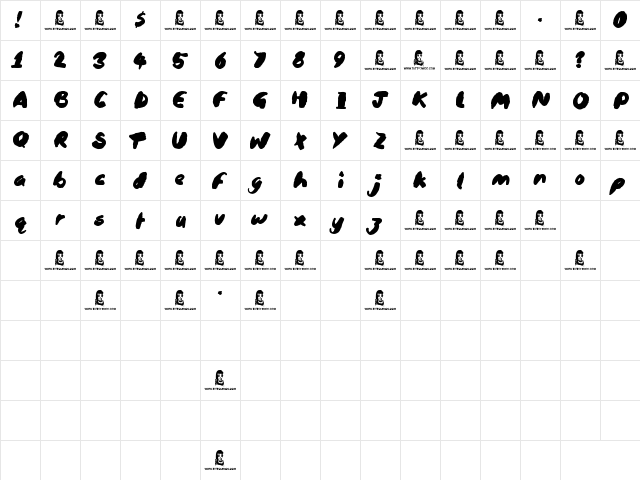
Black Brush Regular
Design Context for Black Brush Typeface
Black Brush brings a calligraphic fluidity to the page — its connecting strokes and expressive curves give it an unmistakably human quality.